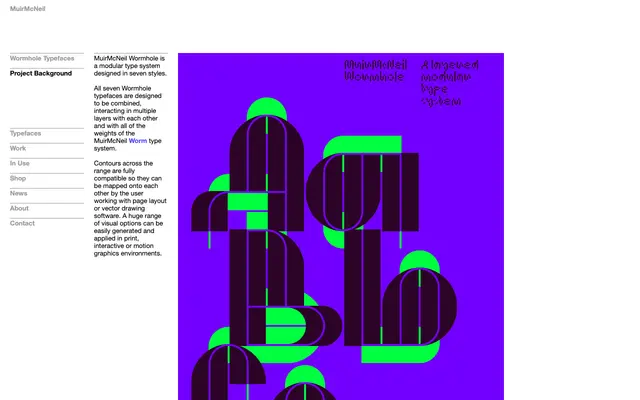
Wormhole
Muirmcneil · MuirMcNeil
A seven-style modular type system built for layering, with contours compatible across all styles and with the MuirMcNeil Worm family.
Wormhole is a modular display system of seven styles, each designed to be stacked and combined with the others and with all weights of MuirMcNeil's Worm type system. Contour compatibility across the full range means styles can be mapped onto each other directly in page layout or vector software, opening a broad field of composite treatments. The system is suited to print, interactive and motion graphics contexts where layered typographic construction is central to the work.
A modular type system designed for layering and combination, placing it firmly in the display category with a construction-based subcategory rather than any conventional serif or sans classification.